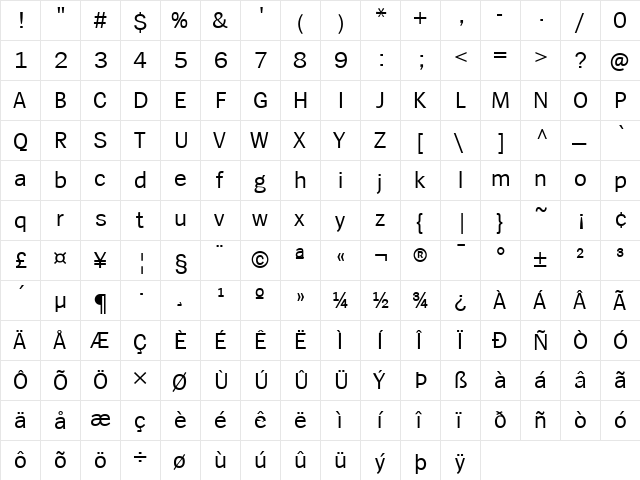
Spiegel Regular
Design Context for Spiegel Typeface
Spiegel offers clean, dependable letterforms without strong stylistic allegiance, making it a practical choice for designers who need flexibility.